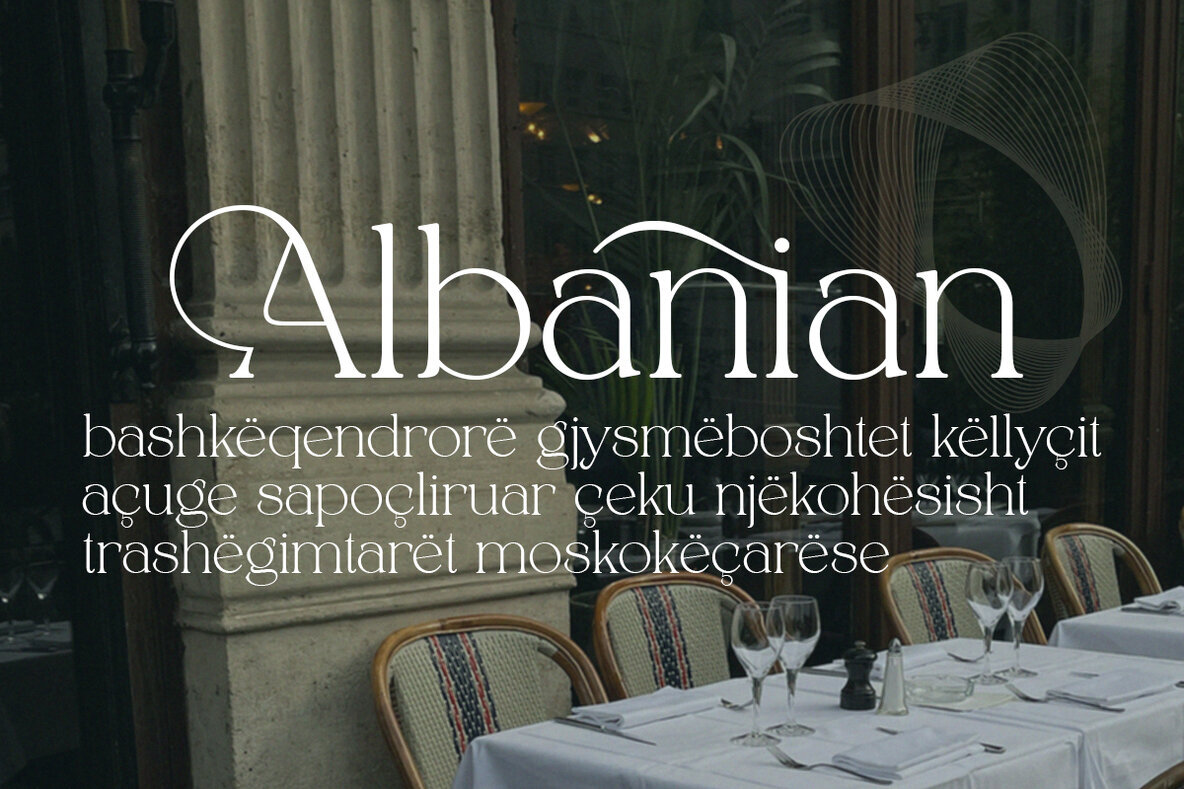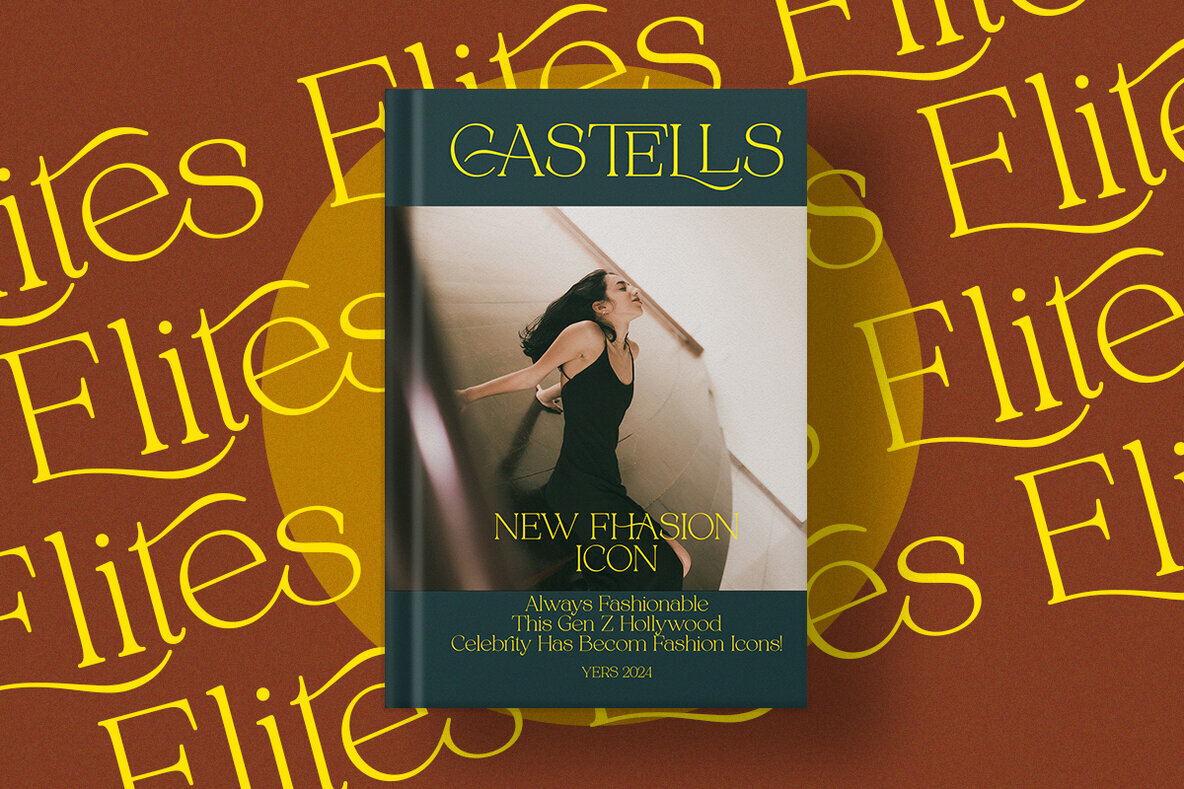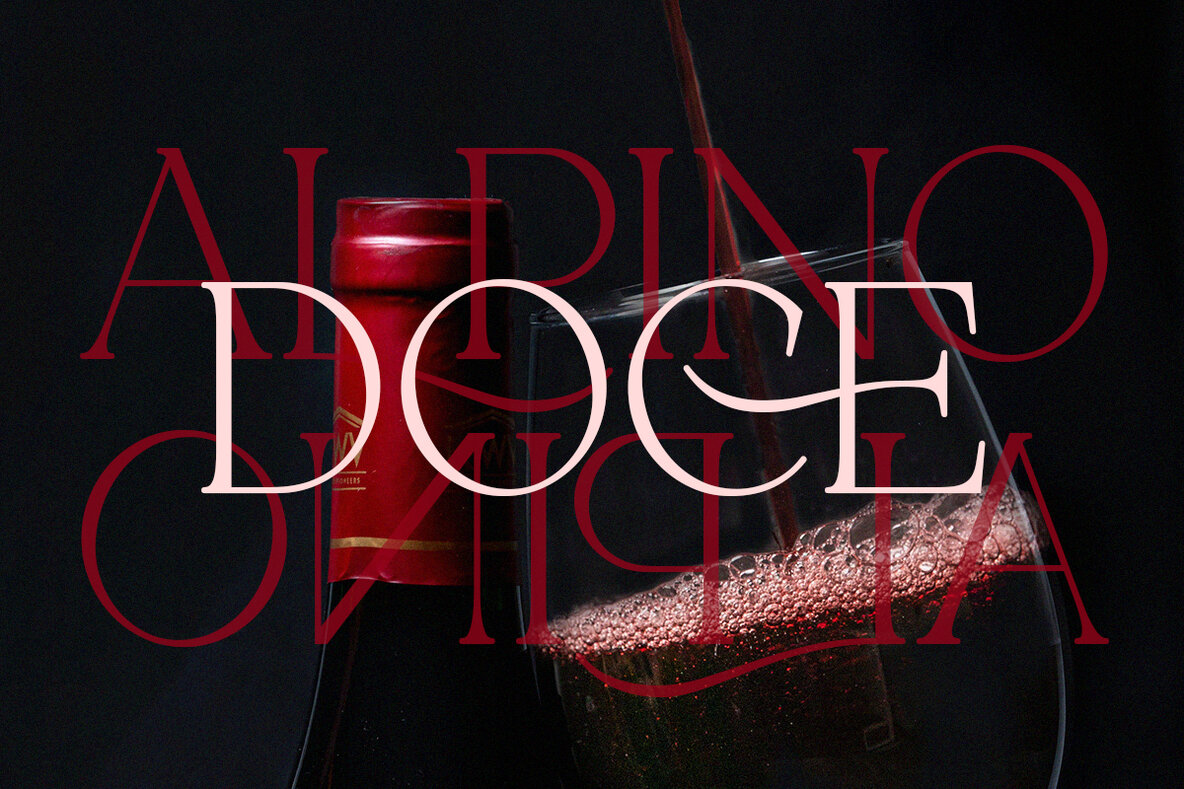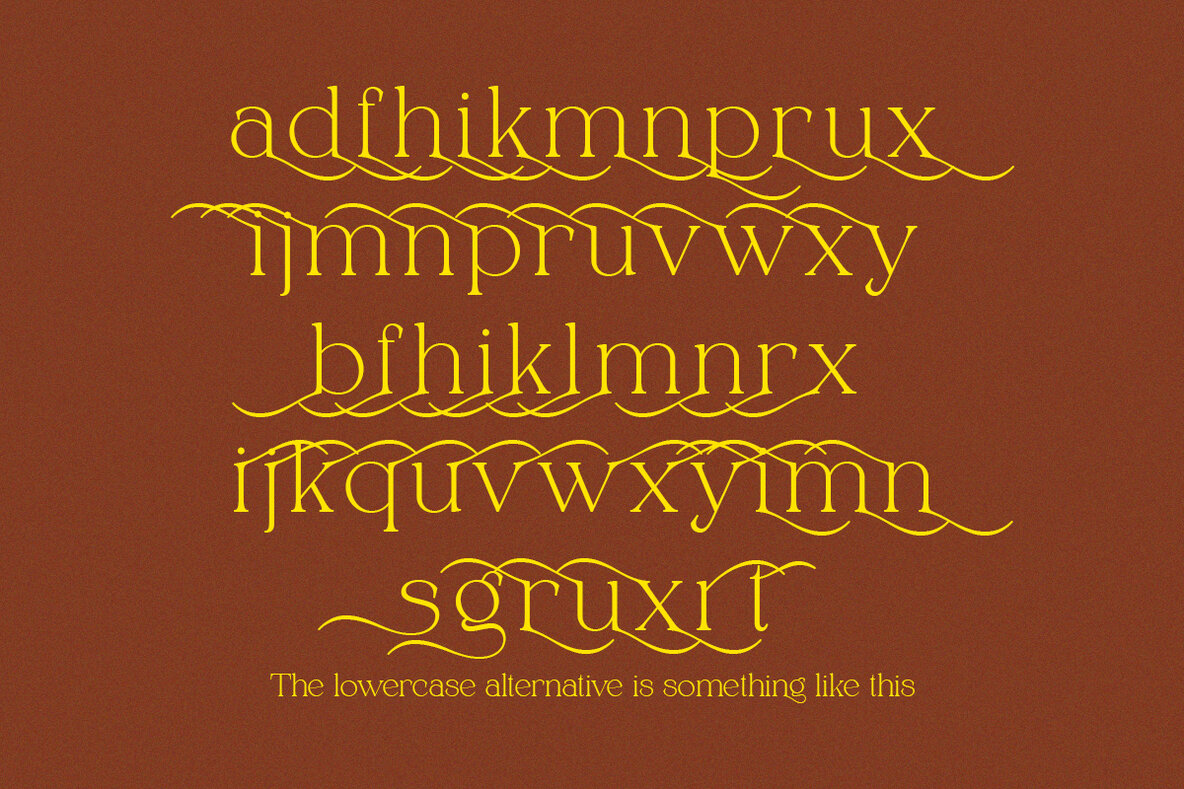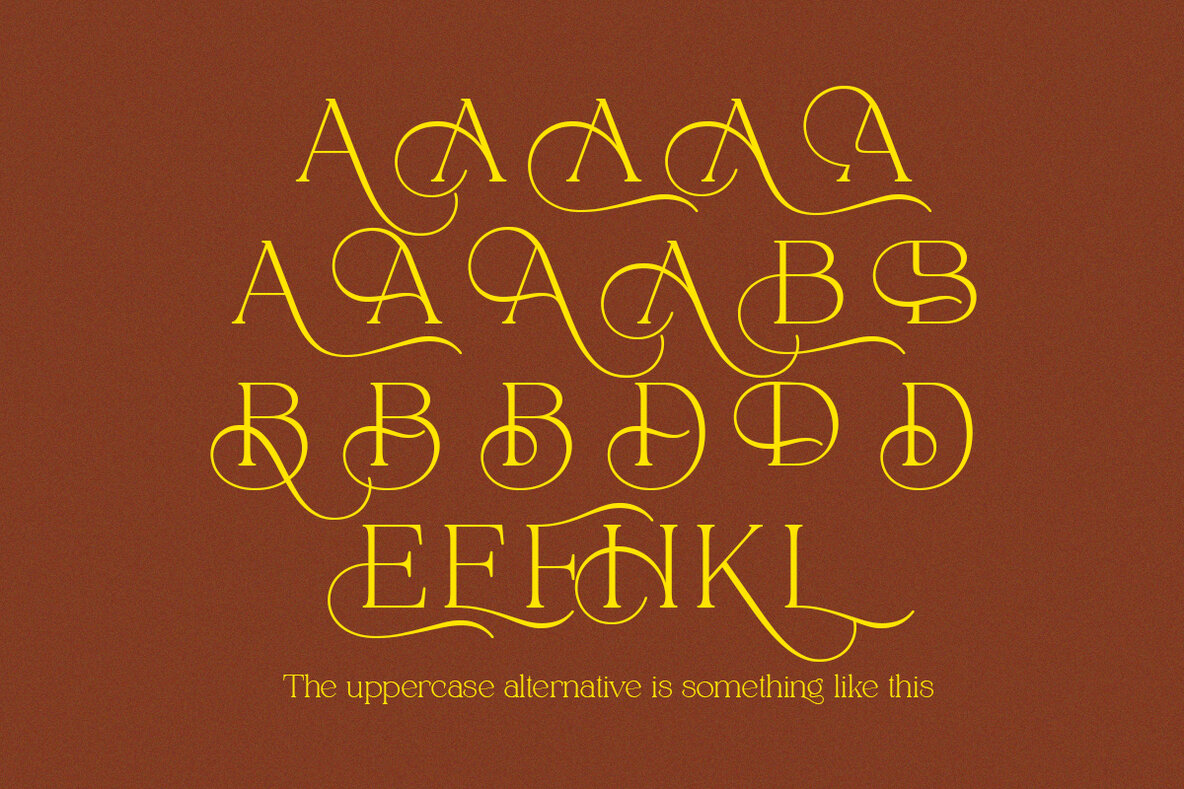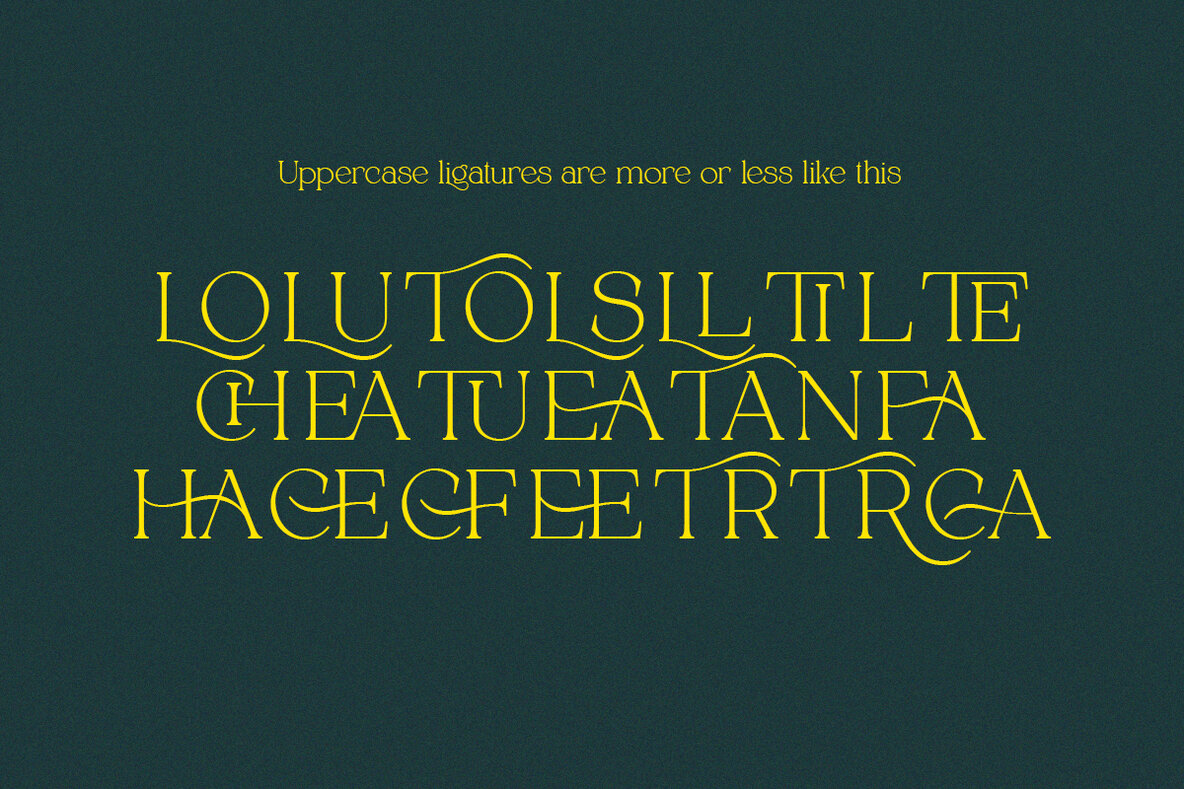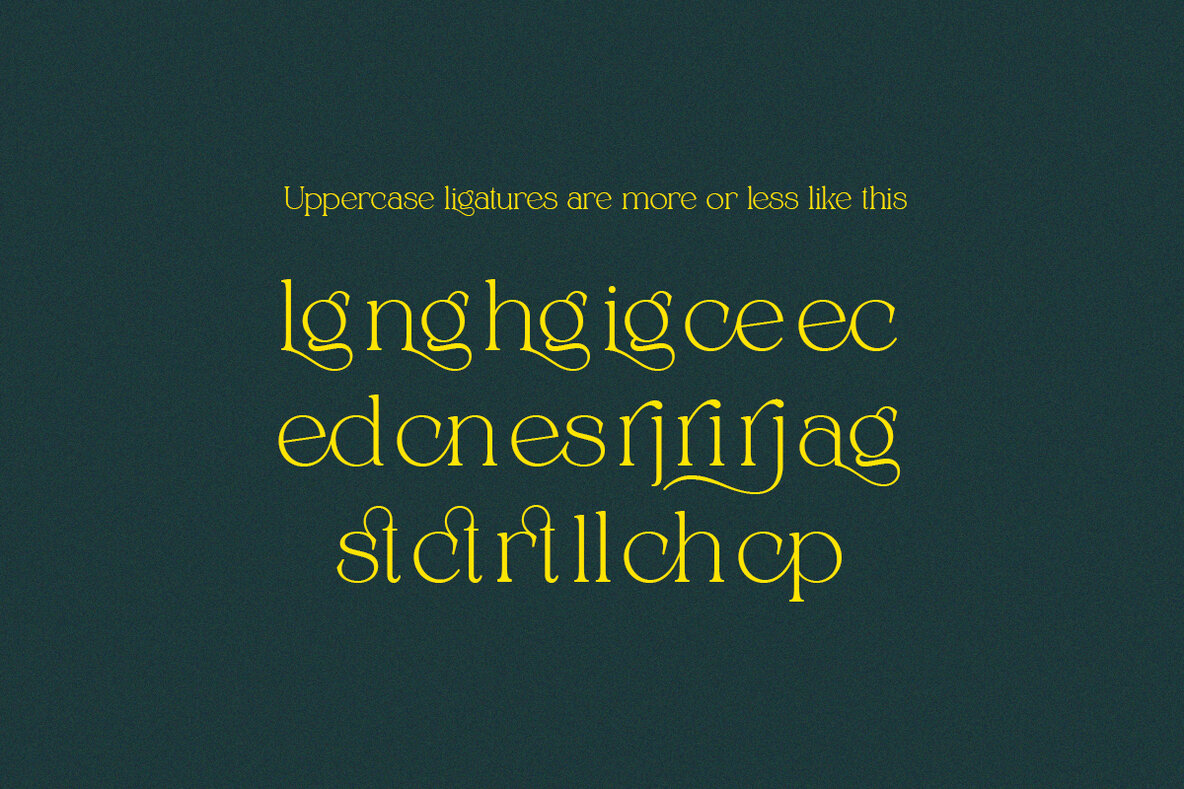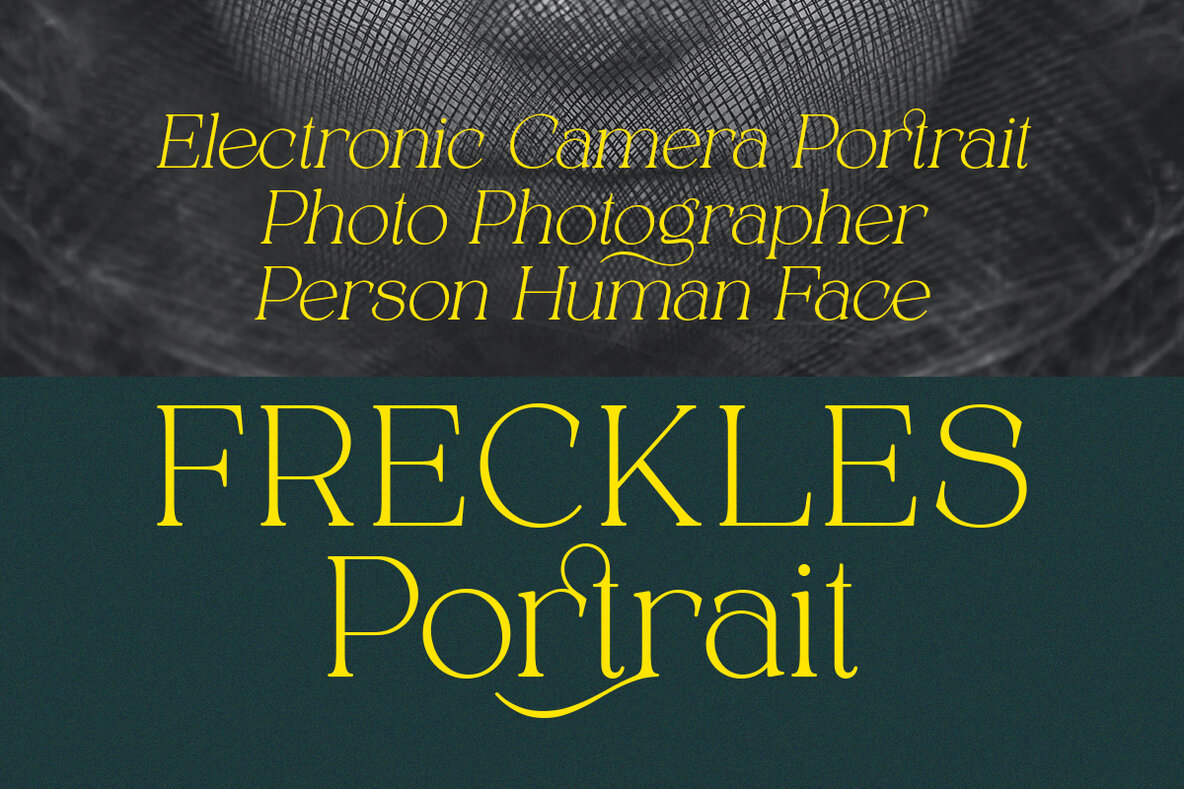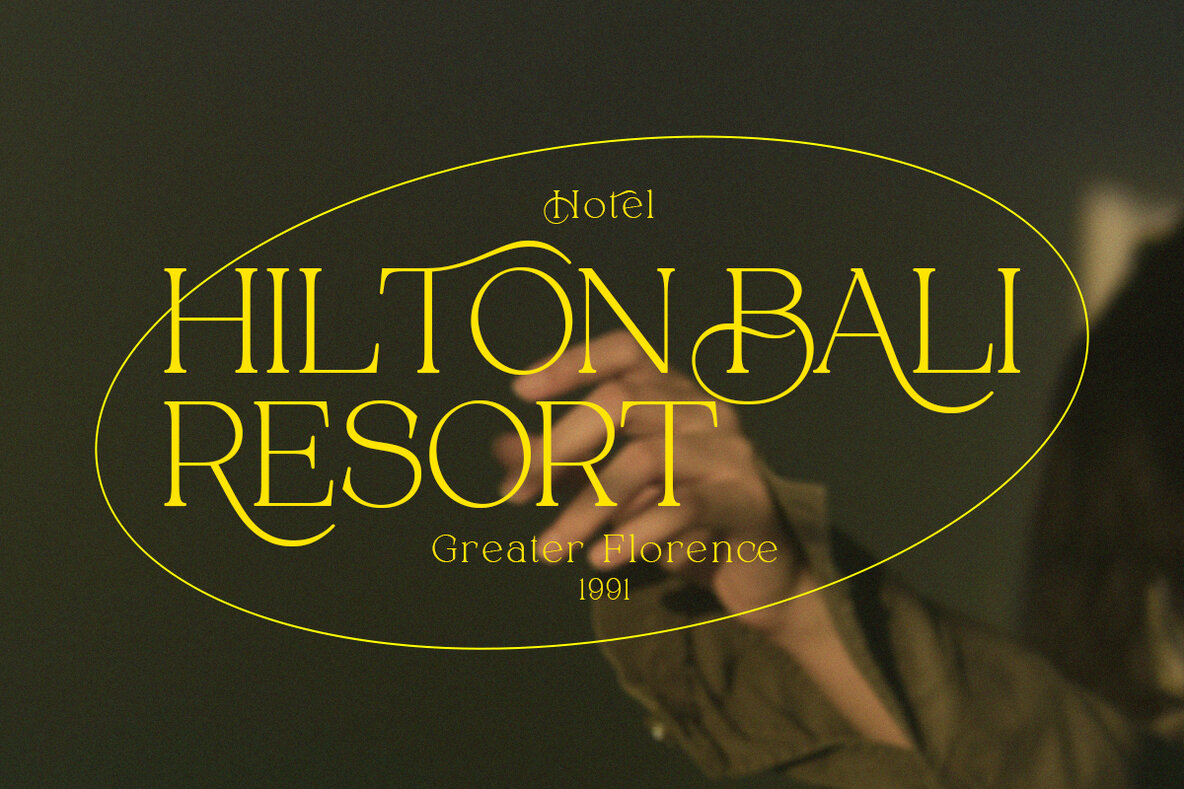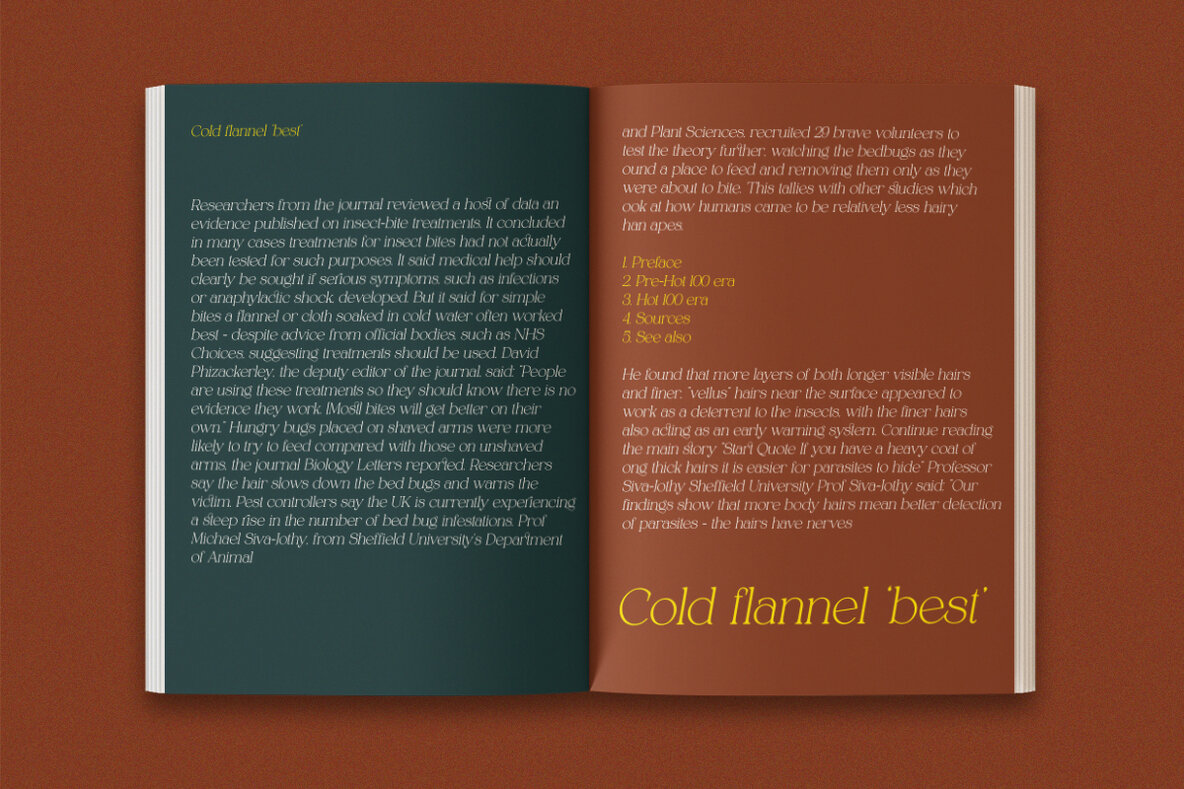
Alpinecia Font
Alpinecia is a trendy, stylish serif font ideal for adding a touch of elegance to your luxury projects. Its classic design and modern flair make it an excellent choice for branding endeavors. With a variety of alternatives and bindings, Alpinecia empowers you to craft unique logos and website headers.Alpinecia: Classy Serif Font for Luxury Branding